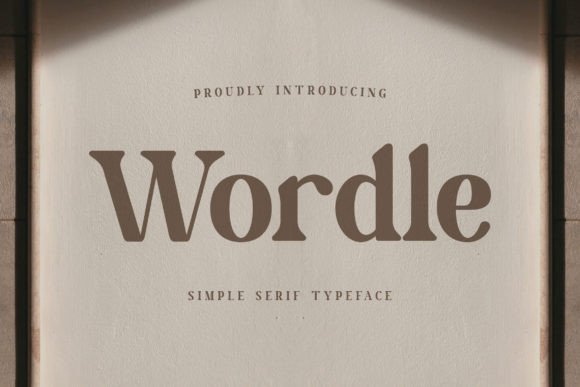
Elevate Simplicity with Wordle: A Timeless Serif Typeface
In the realm of typography, simplicity and elegance often seem like mutually exclusive concepts. However, with the emergence of “Wordle,” a simple serif typeface, designers can now effortlessly infuse their projects with timeless sophistication. This meticulously crafted font embodies the perfect balance between understated charm and refined readability, making it an ideal choice for a wide range of design applications.
The Essence of Wordle
At its core, Wordle is a celebration of simplicity. Its clean and refined letterforms are designed to convey a sense of elegance, making it an excellent addition to any project that demands a touch of sophistication. Whether you’re working on minimalist branding, clean editorial layouts, elegant invitations, or more, Wordle seamlessly integrates into your design, elevating it to new heights.
Design Philosophy
The design of Wordle is rooted in a deep understanding of typographic principles. Each character has been carefully crafted to achieve a perfect balance between simplicity and readability. This balance ensures that Wordle not only appeals to those who appreciate minimalist design but also meets the practical needs of clear communication.
Clean and Refined Letterforms
Wordle’s letterforms are characterized by their clean lines and refined features. The font’s serifs are subtle yet distinctive, providing a sense of tradition and reliability while maintaining a modern aesthetic. This blend of classic and contemporary elements makes Wordle versatile and adaptable to various design contexts.
Readability and Versatility
One of Wordle’s standout features is its exceptional readability. The font performs excellently across different mediums, from digital screens to print materials. Its versatility is further enhanced by its ability to convey a range of tones, from formal and prestigious to soft and approachable, depending on the context in which it’s used.
Applications of Wordle
The applications of Wordle are vast and varied. Its unique blend of simplicity and elegance makes it suitable for projects where typography plays a crucial role in setting the tone and conveying the message.
Minimalist Branding
In the world of branding, first impressions are everything. Wordle offers a refreshing alternative to overused and overly complex typefaces. Its simplicity and elegance make it an excellent choice for brands looking to communicate their message with clarity and sophistication.
Example:
A tech startup aiming to establish itself as a leader in innovation might choose Wordle for its logo and marketing materials. The font’s clean and modern aesthetic would perfectly encapsulate the brand’s values and appeal to its target audience.
Clean Editorial Layouts
For editorial projects, such as magazines, newspapers, and blogs, Wordle proves to be an invaluable asset. Its readability and elegant appearance enhance the overall reading experience, making it easier for readers to engage with the content.
Example:
A lifestyle magazine focusing on minimalism and simplicity might adopt Wordle as its primary typeface. The font would complement the magazine’s content and aesthetic, creating a cohesive and enjoyable reading experience for its audience.
Elegant Invitations
Wordle also shines in more traditional applications, such as invitations and event branding. Its classic yet modern appeal makes it perfect for weddings, corporate events, and other formal occasions.
Example:
A couple planning a minimalist wedding might choose Wordle for their invitations and wedding stationery. The font’s elegance and simplicity would beautifully convey the event’s tone and create a lasting impression on their guests.
Embracing the Understated Charm of Wordle
In a design world often dominated by bold and attention-grabbing typography, Wordle offers a refreshing alternative. Its understated charm and timeless elegance provide a unique opportunity for designers to create projects that stand out through subtlety and sophistication.
Step into a World of Refined Typography
By embracing Wordle, designers can step into a world where typography communicates with clarity and elegance. This world values simplicity not as a lack of complexity but as a form of refined sophistication that elevates the design to new heights.
Wordle is more than just a typeface; it’s a design philosophy that celebrates simplicity and elegance. Its clean and refined letterforms, exceptional readability, and versatility make it an invaluable tool for designers looking to create projects with a timeless appeal. Whether you’re working on branding, editorial layouts, invitations, or more, Wordle invites you to explore the power of understated typography and to elevate your designs with its simple yet profound elegance.